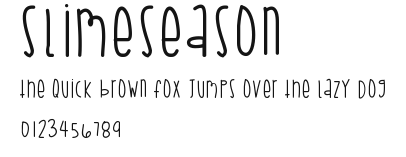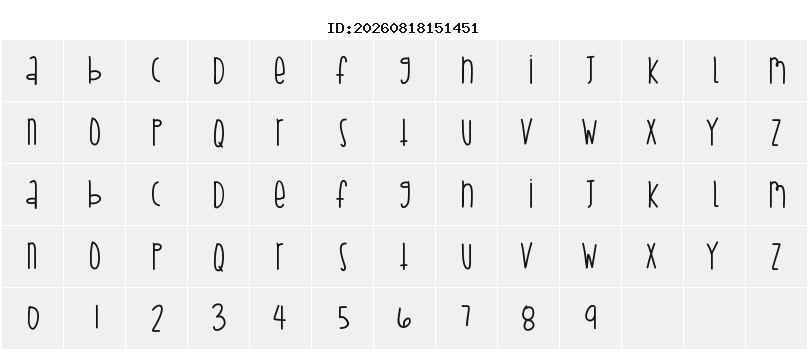
About SlimeSeason.ttf
SlimeSeason.ttf is a modern, elegant sans-serif font designed for ultimate readability and visual harmony. Perfect for branding, headlines, web design, and print materials.